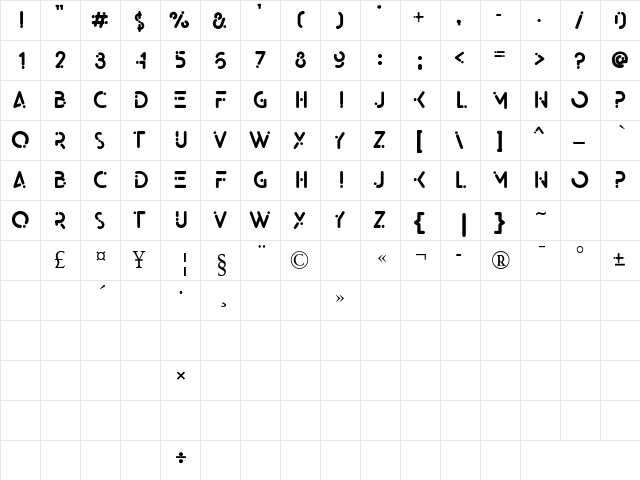
namex Regular Font Preview
namex Regular
namex Regular Font Details
Design Context for namex Typeface
namex offers clean, dependable letterforms without strong stylistic allegiance, making it a practical choice for designers who need flexibility.